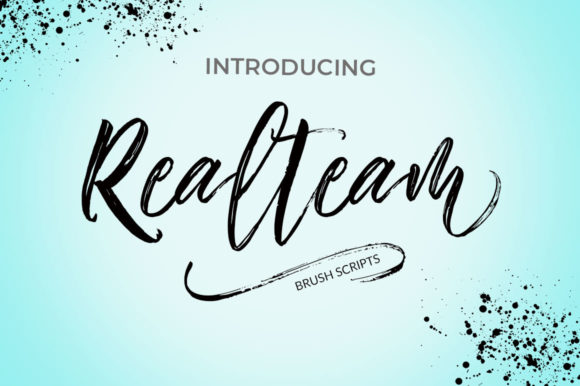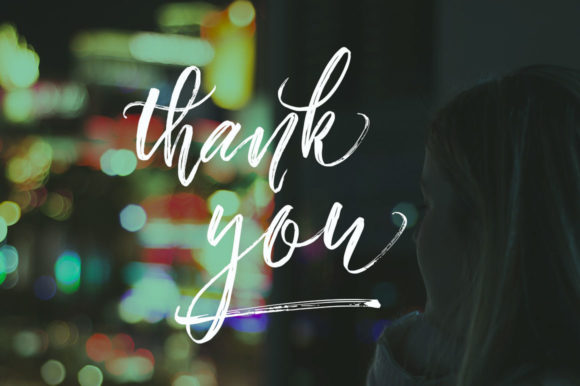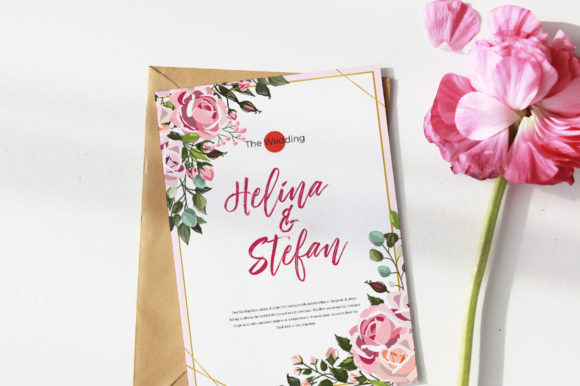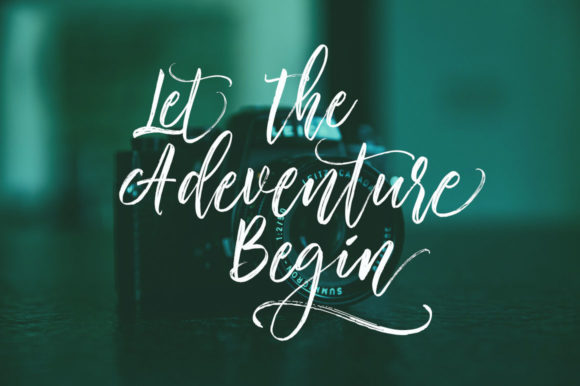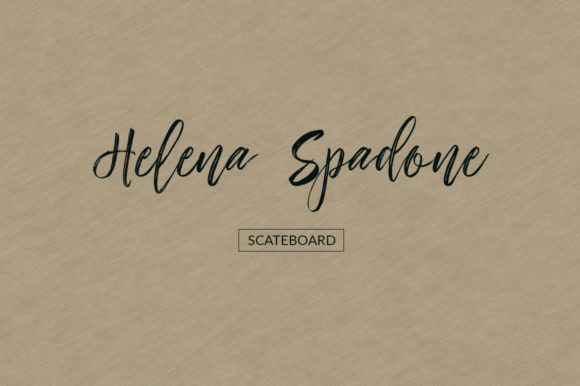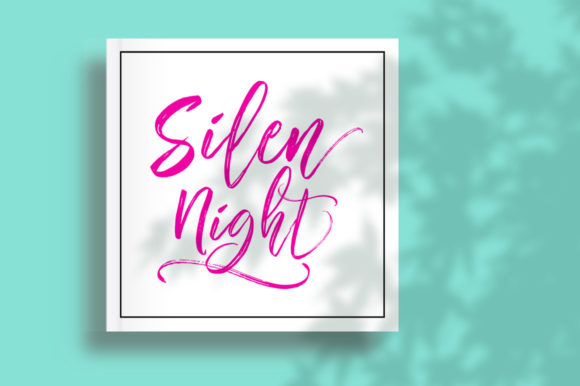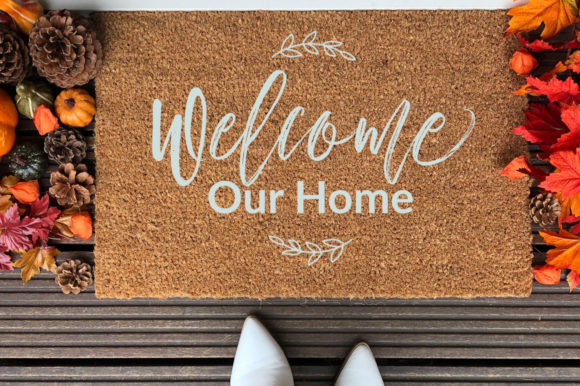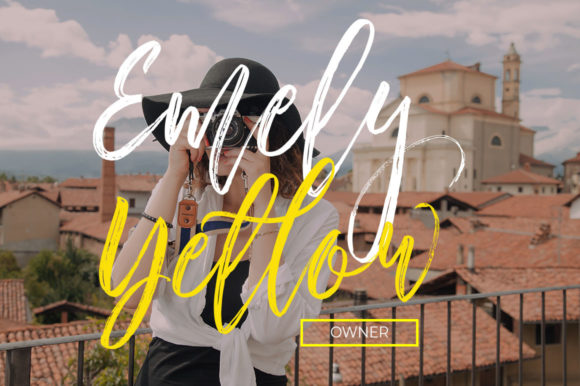
Realteam Font
About Realteam Font
Realteam stands out as a sophisticated and enchanting brush-style font that adds a touch of class to any design. This brush font boasts a range of small letter alternative characters, providing you with the flexibility to choose the perfect style for your specific requirements.
Crafted with a handmade touch, Realteam script exudes a flawless quality that complements a diverse array of creative projects. Its versatility makes it an ideal choice for a wide range of applications, including logos, wedding invitations, SVG designs, cutting projects, stickers, headings, t-shirts, letterheads, signage, labels, news articles, posters, badges, and more.
The charm of Realteam lies in its handwritten aesthetic, which imparts a personalized and unique feel to your work. Whether you’re aiming for a vintage vibe or a contemporary look, this font effortlessly adapts to your creative vision, making it a valuable asset for designers seeking a brush-style font that resonates with elegance.
Realteam’s small letter alternative characters enhance its overall appeal, allowing you to tailor the font to suit the mood and theme of your project. This attention to detail ensures that your designs stand out with a bespoke and polished finish.
From the bold strokes that make a statement in logos to the delicate nuances that grace wedding invitations, Realteam script excels in conveying a sense of style and charm. Its adaptability makes it suitable for both digital and print media, catering to a broad spectrum of design needs.
In summary, Realteam is more than just a font; it’s a versatile tool that elevates your creative endeavors. Whether you’re working on branding, personal projects, or professional materials, Realteam script’s classy and charming brush style adds a distinctive flair, making your designs memorable and impactful.